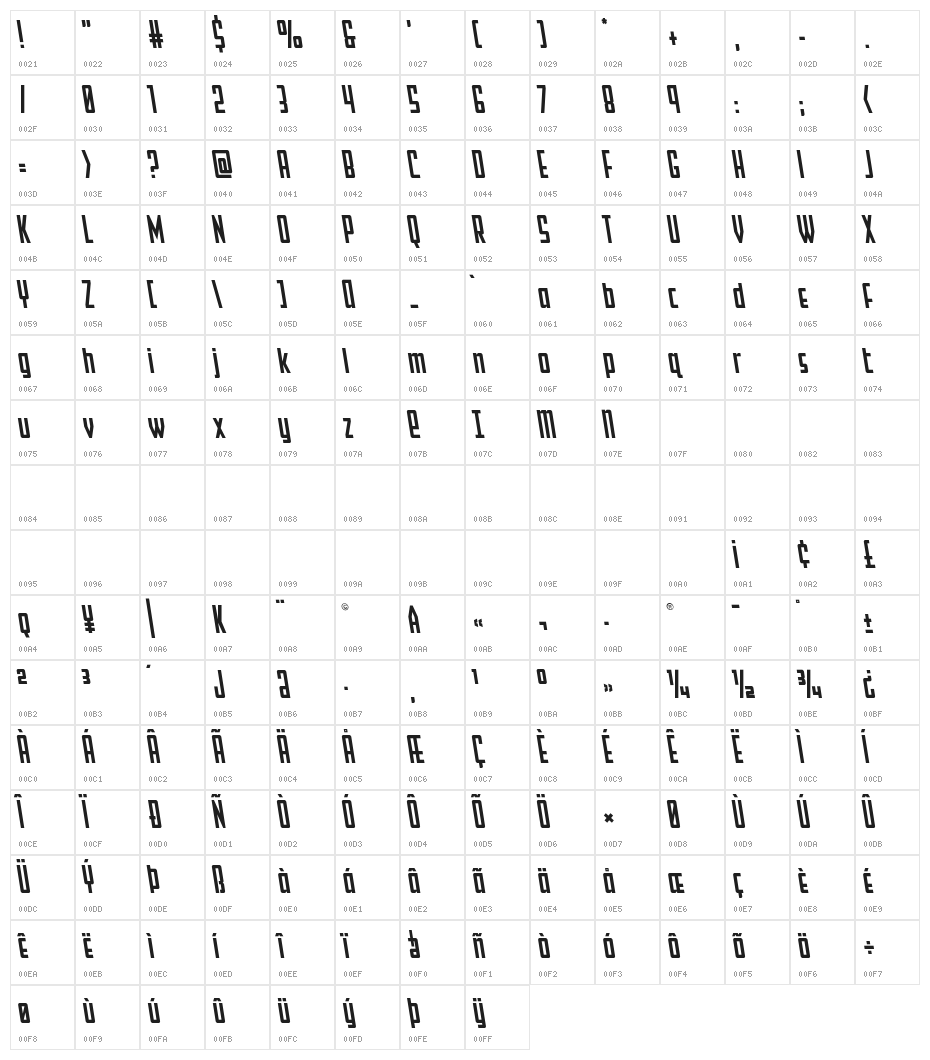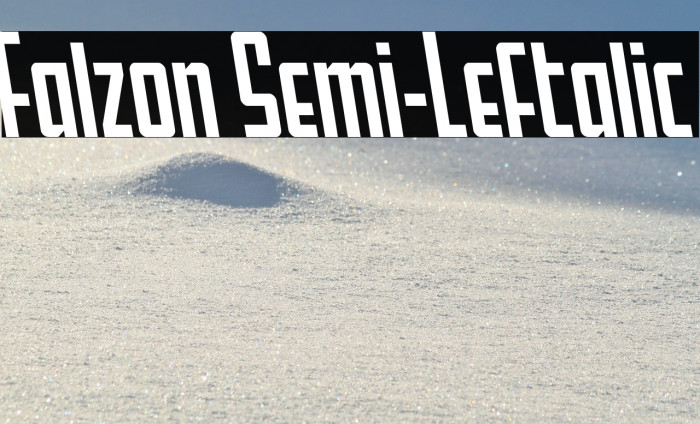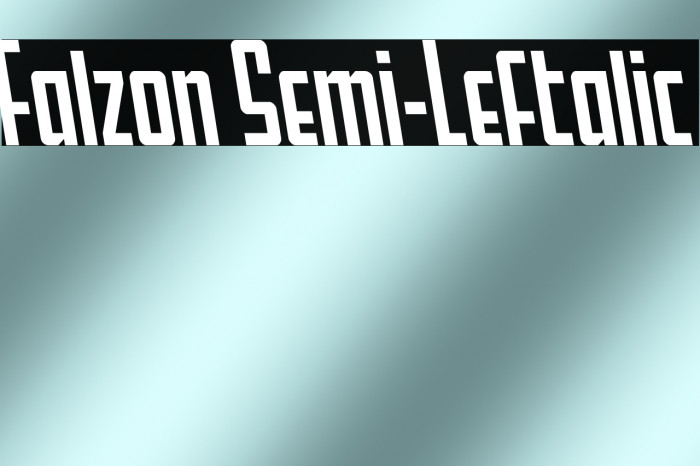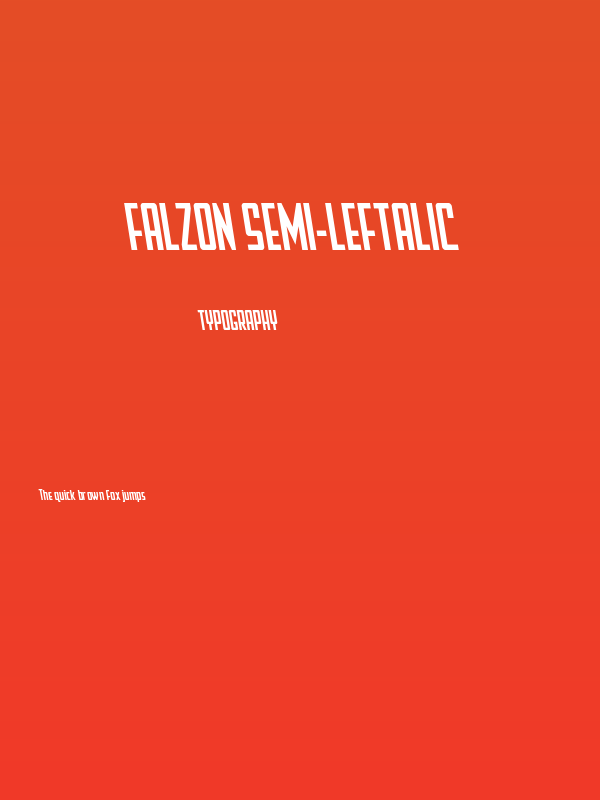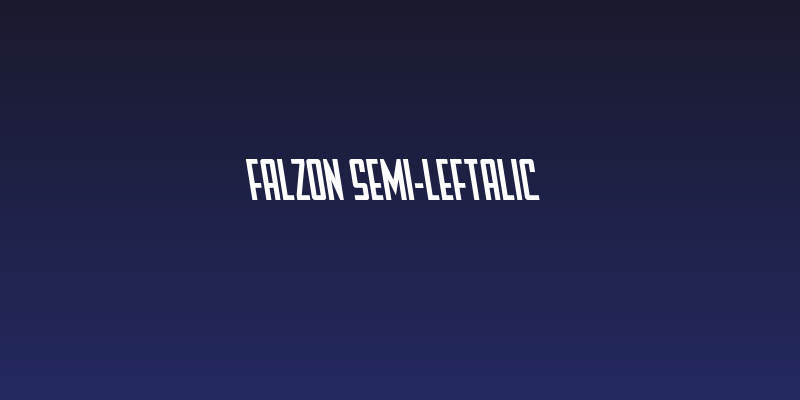
Falzon Semi-Leftalic Font
Falzon Semi-Leftalic Description
This font features a bold, angular design with a distinct leftward slant, giving it a dynamic and energetic appearance. The characters are tall and narrow, with a consistent stroke width that adds to its modern and sleek aesthetic. The uppercase and lowercase letters maintain a uniform style, while the numerals and special characters are designed to complement the overall look. The font's unique slant and geometric shapes make it stand out, suitable for projects that require a strong visual impact.
Proposed ProjectsIdeal for branding, posters, and headlines that require a bold and dynamic look.